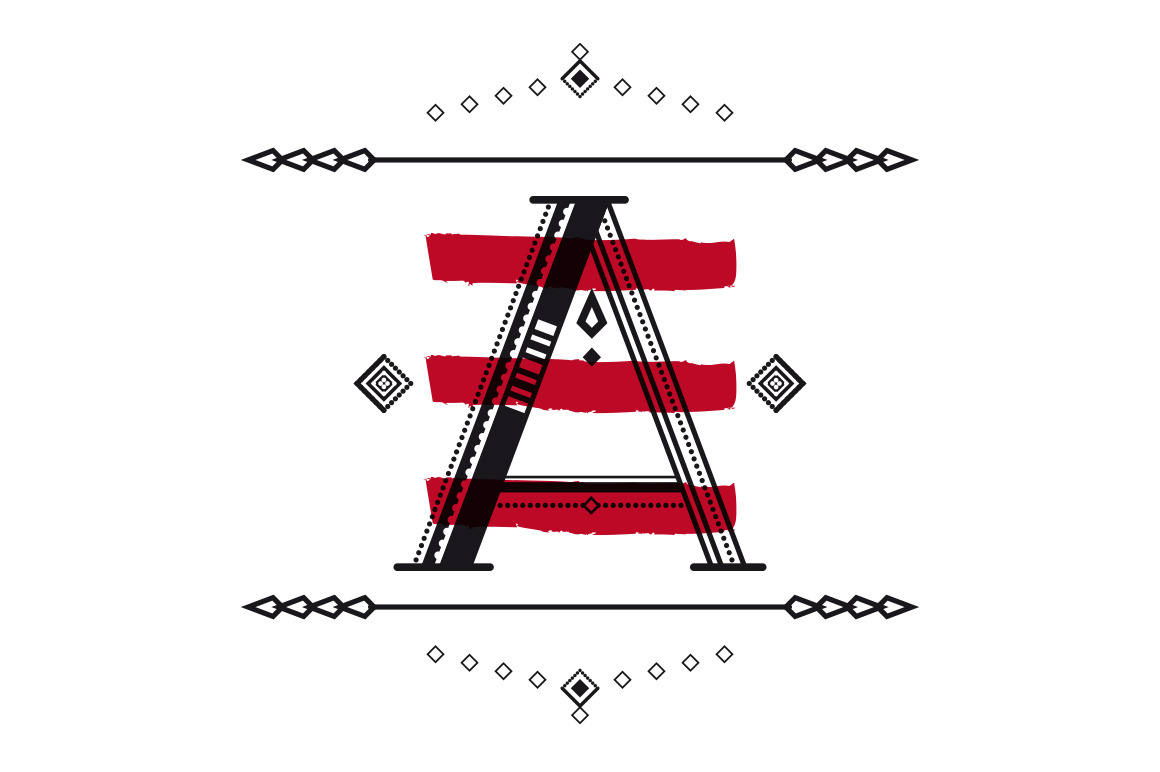
Avanth Font Family
Avanth Typeface was born from the search of a display typeface to use in titles with a real personality, but trying to keep it legible in big sizes. Its own personality is based on small details in each letter (unique in each one of them) using just geometric simple shapes like circles, squares and straight lines.